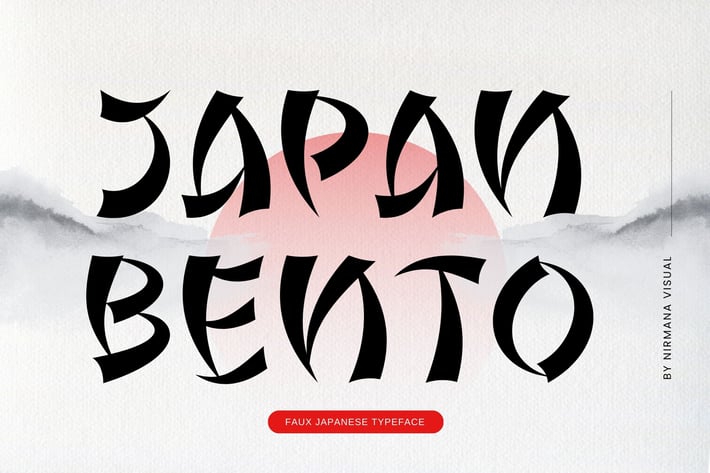
Japan Bento - Japanese Style Display Font
Japan Bento, Inspired by Japanese Kanji Typography. perfect for logos & branding, social media posts, advertisements & product designs.